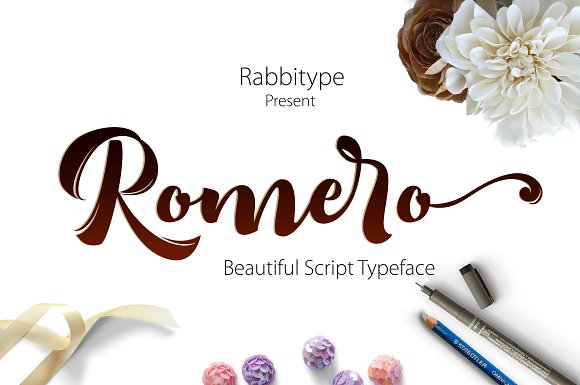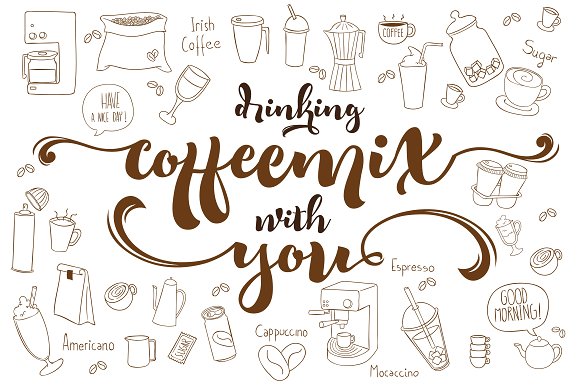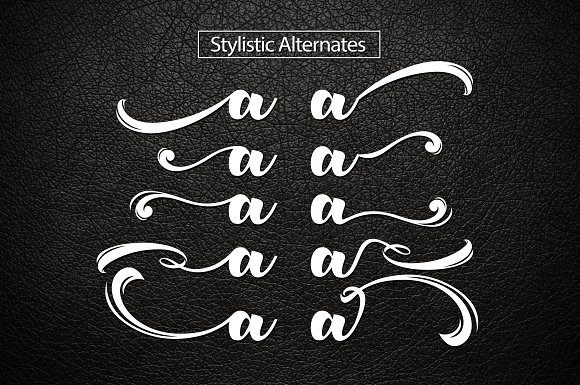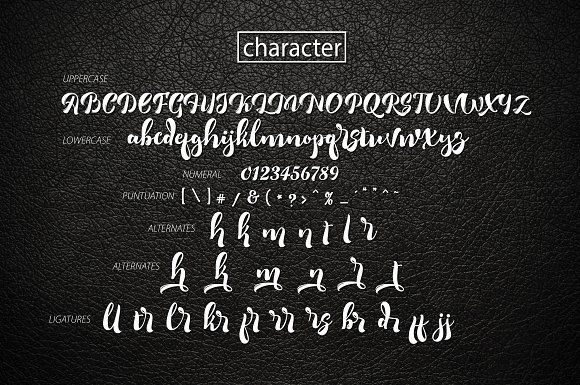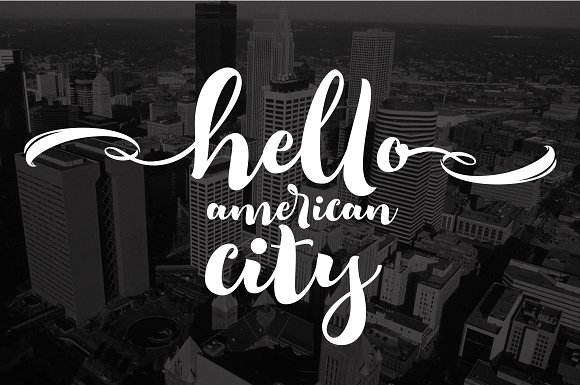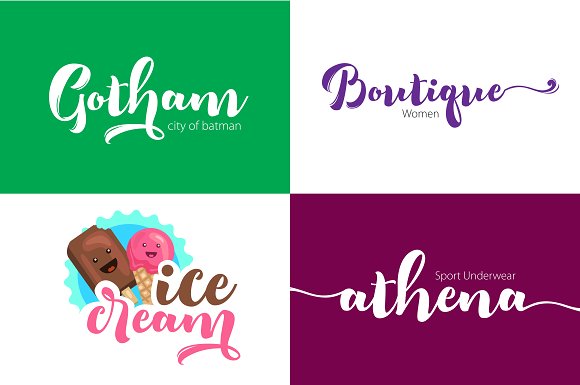
HomeScript FontsRomero Font Script Fonts Romero Font FacebookXPinterestWhatsApp Romero Font Poster 2 Romero Font Poster 3 Romero Font Poster 4 Romero Font Poster 5 Romero Font Poster 6 About Romero Font Romero, a beautiful fresh script font, packed with loads of extras and alternates. DOWNLOAD NOW People also explored Gercoff Extra Light Font Birdie James Font Autined Font Playwood Font Hey Magnolia Font Transportation Doodle Font Ethern Font Olivier Font Cookies Font 293 0 TagsRomero Font Previous articleRisthi FontNext articleSamitha Font LEAVE A REPLY Cancel reply Comment: Please enter your comment! Name:* Please enter your name here Email:* You have entered an incorrect email address! Please enter your email address here Website: Save my name, email, and website in this browser for the next time I comment. Personal Use Free Soulties Personal Use Free Read more about this font Grillin Personal Use Free Read more about this font Uchiyama Personal Use Free Read more about this font Ailand Personal Use Free Read more about this font BLOG The 10 Best Handwriting Fonts to Add Personality to Your Designs 10 of the Best Handwriting Fonts for Adding Personality to Your Designs There will undoubtedly be no other better choice than handwriting fonts to give... Elegant Wedding Invitation Fonts – Handwritten & Script Fonts Free vs Paid Fonts: Why Investing in Premium Fonts Is Worth It Top 10 Handwritten Fonts That Elevate Your Designs